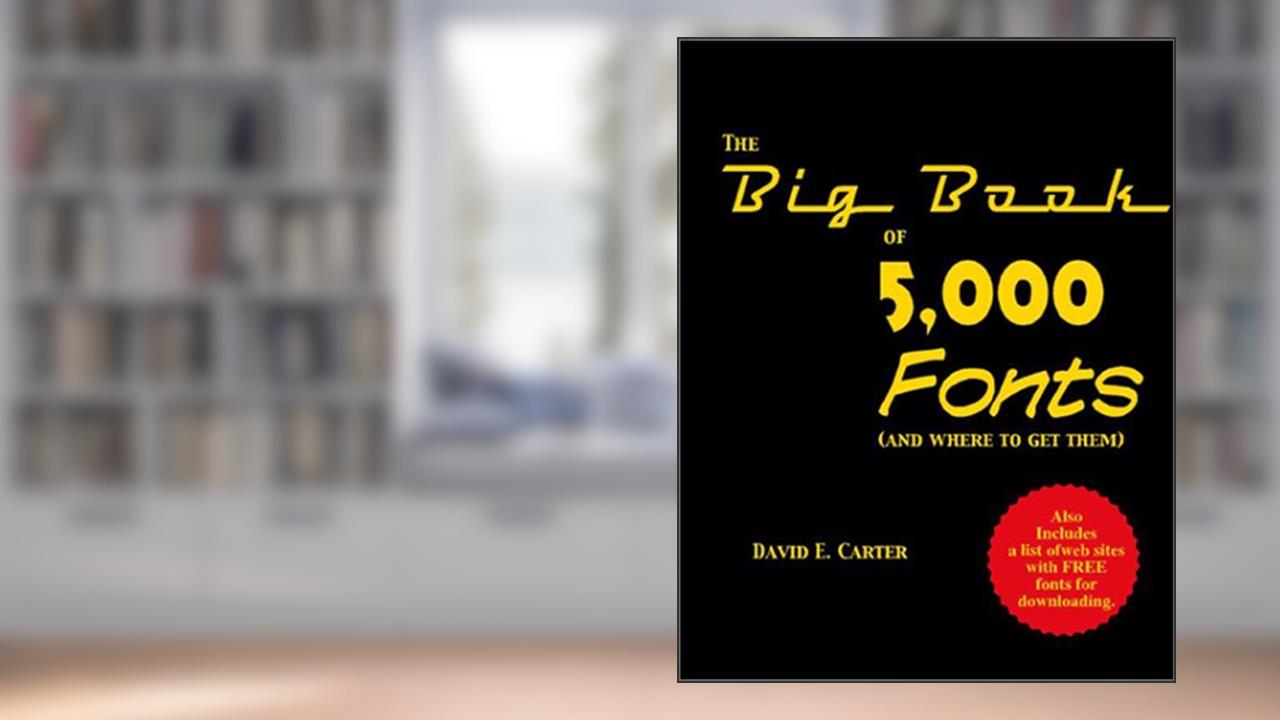
The Big Book of 5000 Fonts (and Where to Get Them)
David E. Carter
In a world awash with digital clutter, The Big Book of 5000 Fonts (and Where to Get Them) emerges as a beacon for designers, typographers, and anyone who has ever felt intrigued by the beauty of letters. David E. Carter doesn't merely present fonts; he curates a transformative experience that echoes through the annals of creative design. If you think fonts are just a collection of letters, then it's high time to rethink that notion, because Carter is about to take you on an exhilarating journey through the intricate world of typography that might very well shake the very foundation of your creative pursuits.
This book is not just another resource-it's a treasure trove. Imagine flipping through its pages, feeling the thrill of discovery at every turn, as you unveil 5,000 unique fonts that could breathe new life into your projects. From whimsical scripts to robust sans-serifs, each typeface pulsates with its own personality, waiting just for you to harness its potential. Whether you are designing a wedding invitation, a company logo, or merely experimenting for fun, this extensive collection demands your attention. 😍
Carter's expertise shines through as he dives deep into each font's history and application, weaving not just the utility of each typeface but also the emotional connection they can forge. These are not mere letters; they are vessels of expression, capable of communicating feelings and ideas that transcend language. Readers rave about how this book branches across various styles, continental influences, and eras, making it a necessary companion for anyone engaged in the art of visual communication. The sheer volume of fonts and the thoughtful organization into categories makes it a reference book you'll return to time and time again.
However, amid all this praise, not all feedback is glowing. Critics point to the overwhelming nature of the selection, suggesting that perhaps 5,000 fonts might be a tad excessive for the average user. Some express concerns that amidst the wealth of choices, beginners might feel lost or intimidated. But isn't it precisely within that chaos that creativity is born? The challenge to sift through and find the perfect match could be exactly what inspires a breakthrough moment in your design process.
Interestingly, the historical context in which Carter explores typography extends beyond the pages of his book. As digital media took flight in the early 2000s, the explosion of fonts became synonymous with the democratization of design. Each typeface tells a story-the modern font revolution rekindled the notion that everyone can be an artist, and this book captures that spirit beautifully. Fonts are not just tools; they are conduits of culture, bridging gaps between generations and artistic ideologies.
By illuminating these various voices of typography, The Big Book of 5000 Fonts does far more than compile a list; it urges readers to rethink the significance of textual presentation in a visual world. It pushes boundaries and invites us to challenge conventions with every kerning adjustment we make, every style choice we deliberate over.
So, are you ready to challenge yourself and redefine your creative work? When you hold The Big Book of 5000 Fonts in your hands, remember: this is not just about selecting a typeface; it's about unleashing possibilities. Fonts won't just adorn your designs-they will infuse them with character, emotion, and, ultimately, magic. 💫✨️ Don't merely witness the evolution of your artistic expressions, become a part of it!